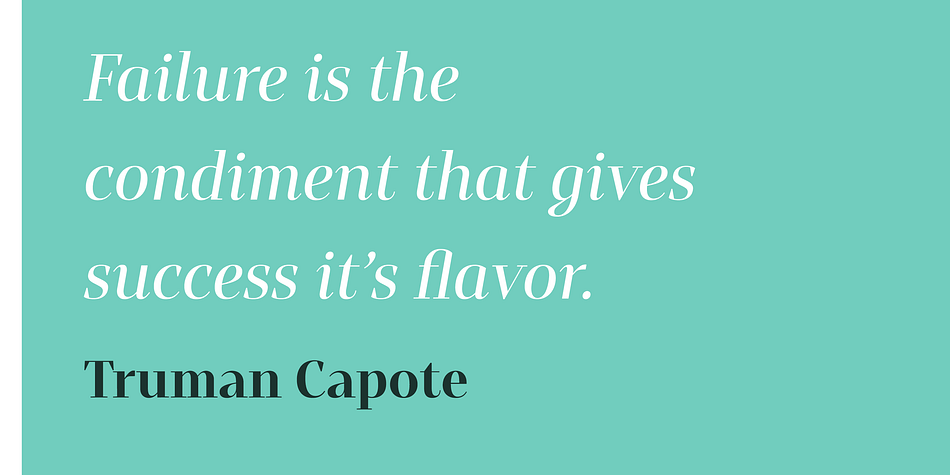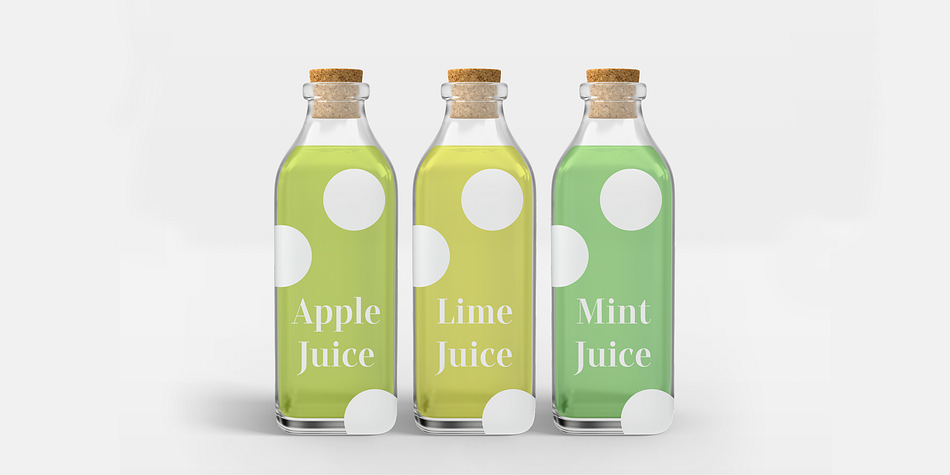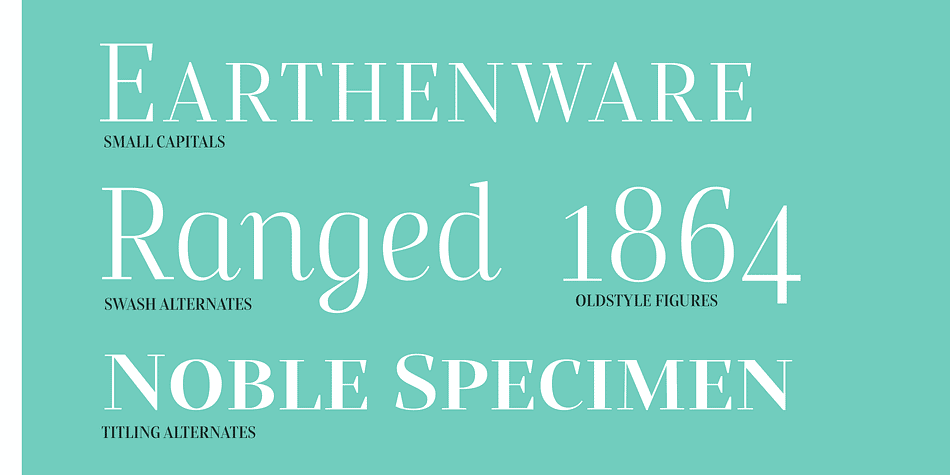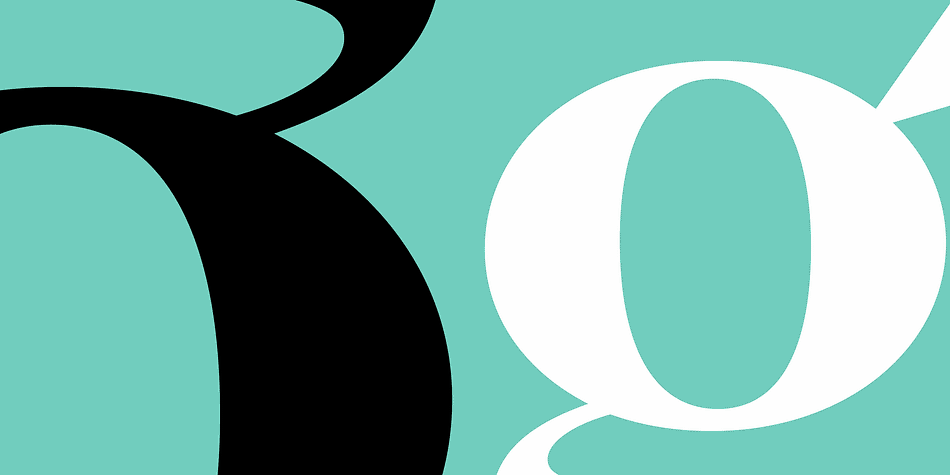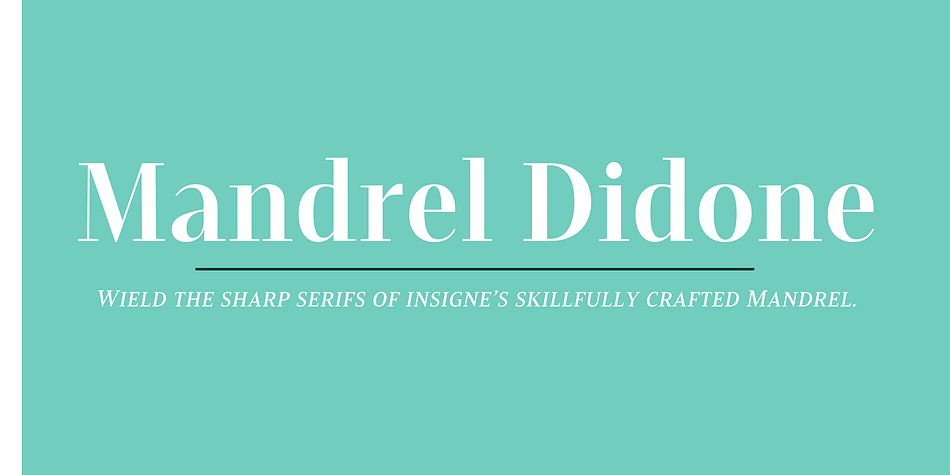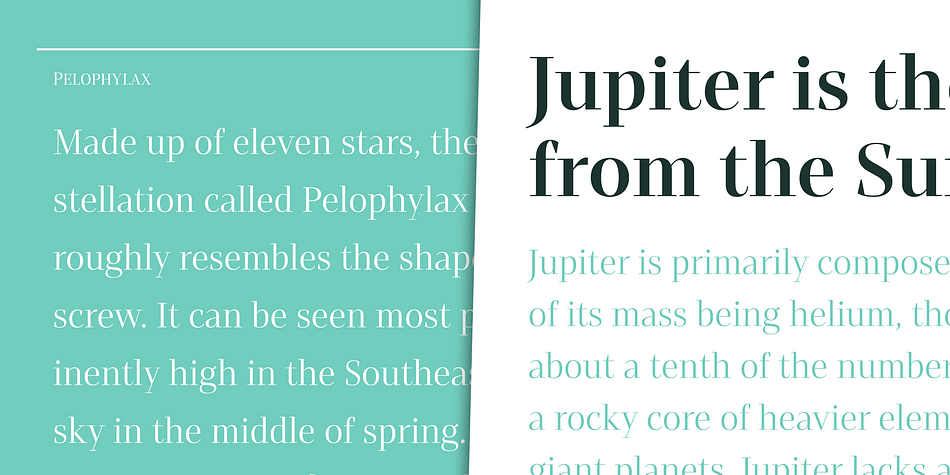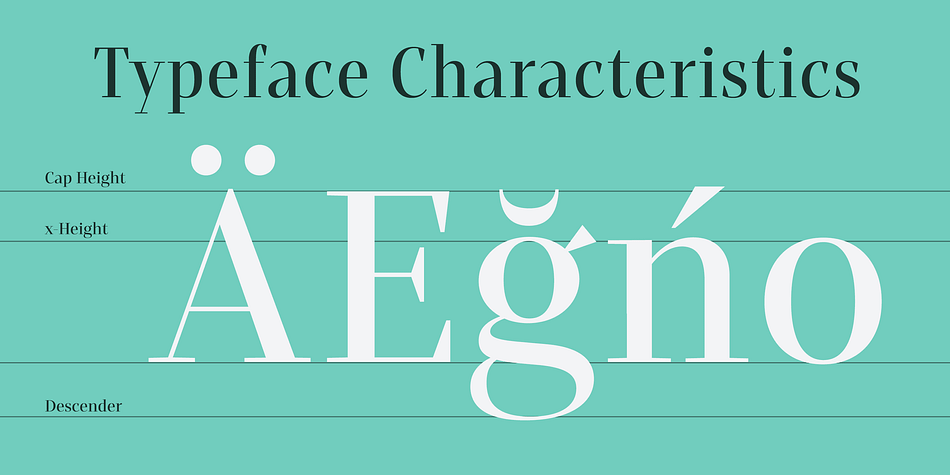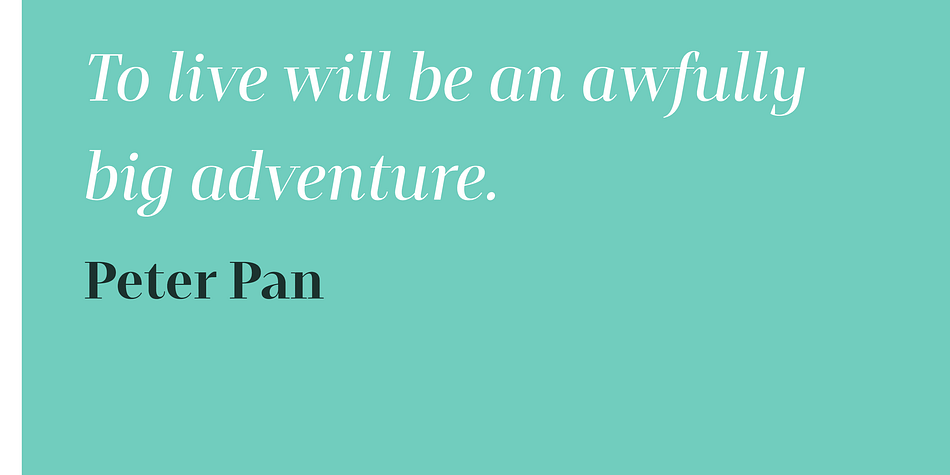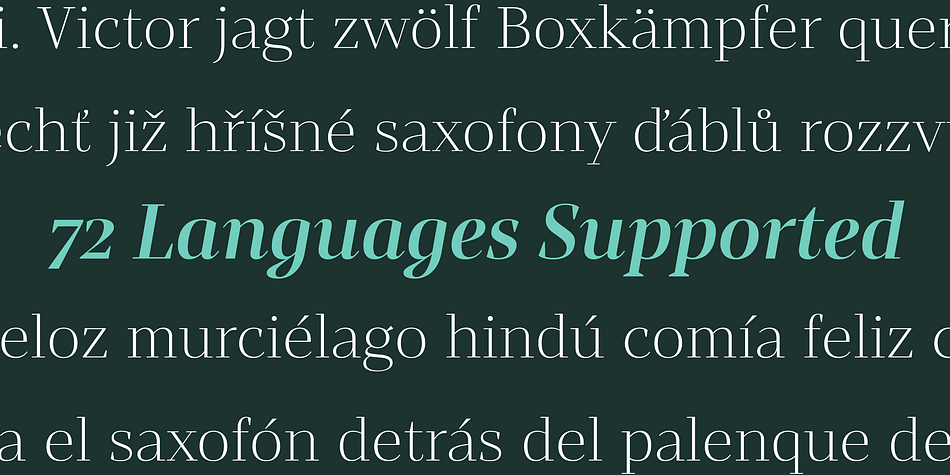
Mandrel Didone
Designed by Jeremy Dooley, Mandrel Didone is a serif font family. This typeface has fifty-four styles and was published by Insigne Design.
A new family has sprung from the world of insigne. Mandrel Didone is his name. The face is well-liked by those with whom it seeks an audience because of its courtly demeanor and exquisite look. Mandrel Didone conducts itself beautifully in front of each set of eyes with a confident attitude, never wavering or tripping in its polished step.
But, despite it’s gentility, this exquisite family is not weak in the face of adversity. Mandrel Didone is a powerful and conspicuous typeface that has towering x-heights, great contrast, confident bends, and sharp serifs. It is well-crafted for high-impact resistance. It uses its sharp serif ends deftly, cutting through opponents’ clumsy clutter in the battle for the reader’s attention.
This noble family consists of nine weights and their matching italics, ranging from Thin to Black. Mandrel Didone also comes with a plethora of OpenType options to let you embellish your text. The family’s 500 glyphs and support for more than 70 languages are accompanied with ligatures, old-style figures, and stylistic sets.
Raise your glass in honor of the new Mandrel Didone! This champion, with its powerful serifs and great contrast, is ready to take on your challenge in many tests to come.